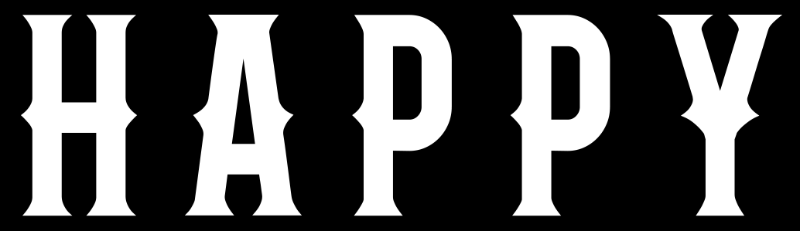
Wood Type Font ID Request
I need some help identifying the typeface in the attached PNG sample. I've seen the typeface before but I just can't jog my memory enough to remember just what it is! Thanks in advance.
Roper Serif is close, but the points on the sides of the letters (like the letter A) are not in the right places.
I'm stuck too. Looks so familiar. I would probably just modify IFC Insane Rodeo's serifs or pick something with similar serifs and add the triangular spikes in the centers. Either way, a headache.